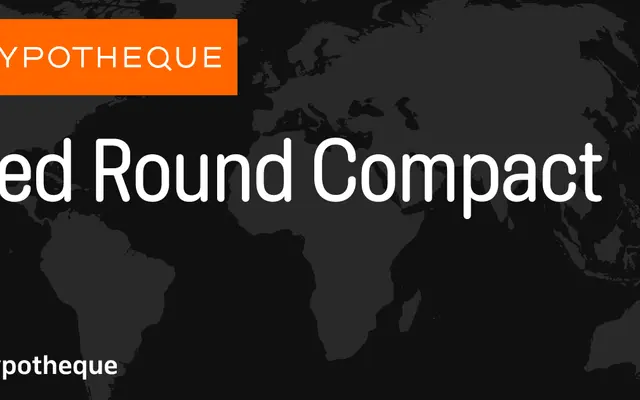
Zed Round Compact
A rounded, compact-width cut from Typotheque's Zed superfamily, one of the most extensively structured geometric sans systems available.
Zed Round Compact is one node in an unusually thorough system that spans nine widths, three optical subfamilies (Display, Round and Text), and nine weights from Hairline to Black, with upright, slanted and backslanted styles throughout. The Round subfamily adds softened terminals to Zed's geometric skeleton, distinguishing it from the sharper Display cuts. A variable font is also available, giving access to the full width and weight range in a single file.
Zed is a large geometric sans superfamily with display, round and text optical subfamilies across many widths; Round Compact sits in the display-oriented rounded variant at a compact width, making display the most fitting category.